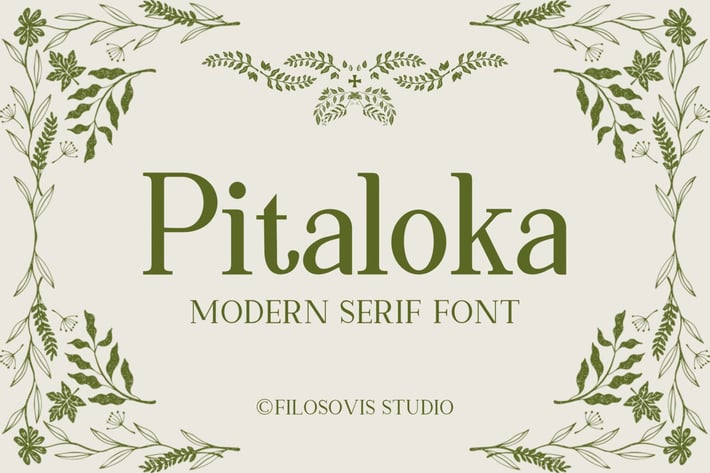
Pitaloka | Modern Serif Font
Pitaloka Font is a typeface that has solid, yet smooth, lines. It features balanced letter proportions and an attractive serif form. Because Pitaloka Font is clear and easy to read, it may be used for designs that need to be readable, including books, articles, publications, and logo and brand identification designs.